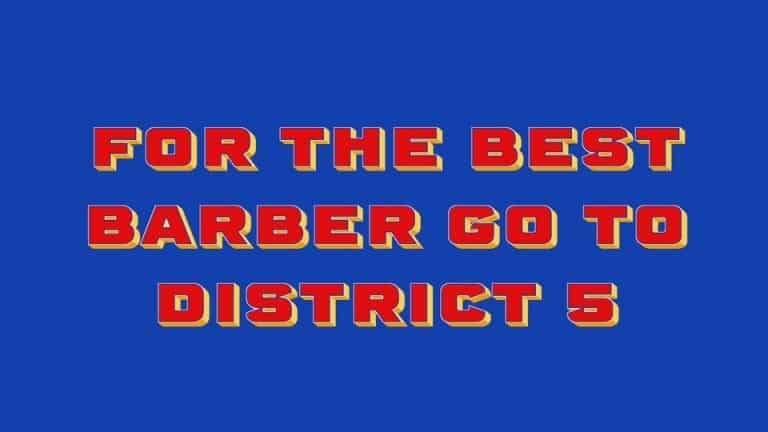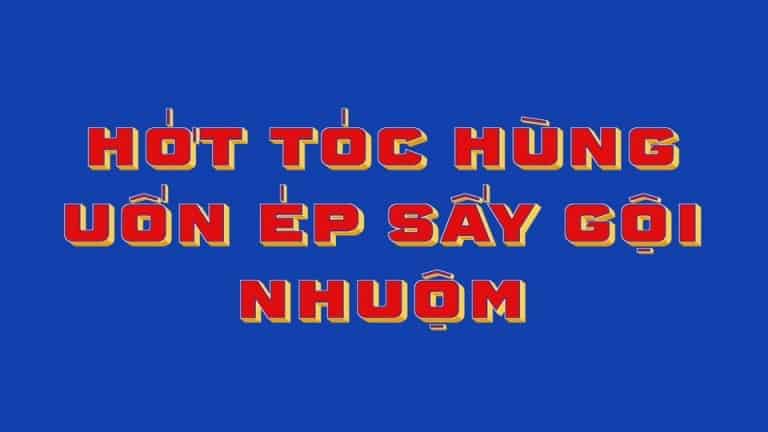
Introducing Barber Display Font is an ode to the glorious art of Vietnamese signpainting. Hand-painted signs, which once dominated urban areas, now remain on storefronts of very few businesses in the Cho Lon area. This typeface was rendered based on one of such remnant—a barbershop’s sign in District 5, Saigon circa mid-1980s. By late 2018, the old barbershop’s sign was no longer visible hidden behind a newer, extended metal one.
The chromatic, all-caps, display typeface consists of 4 font variants. When layered, they create the dimensional typographic effects with lighting and shadows, similar to that of the original hand-painted sign. This style was largely influenced by European lettering in the 19th and 20th century.